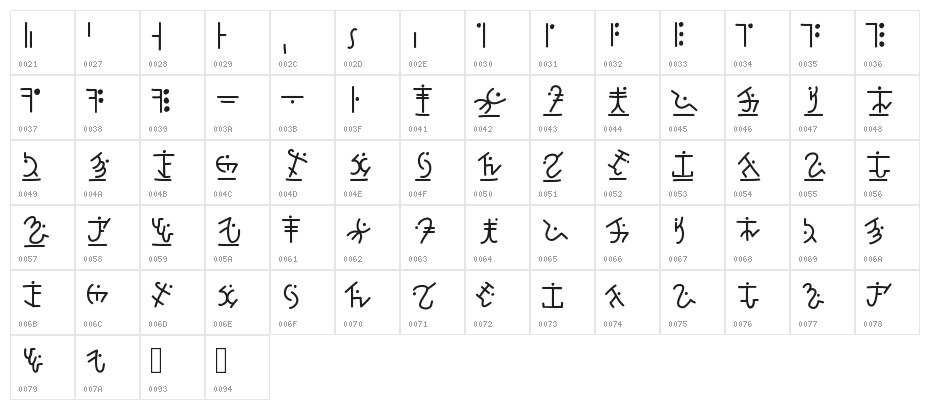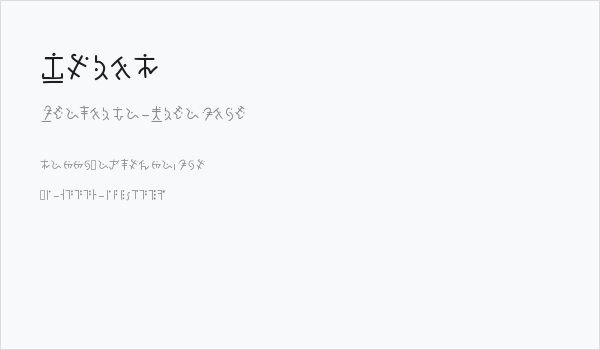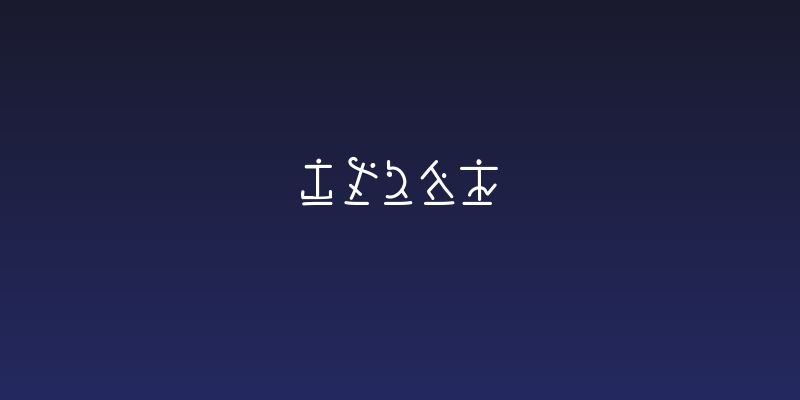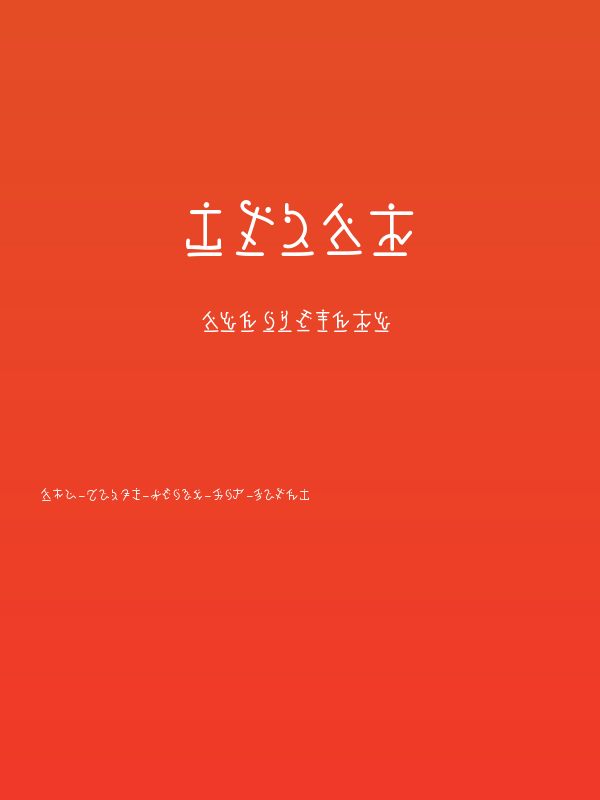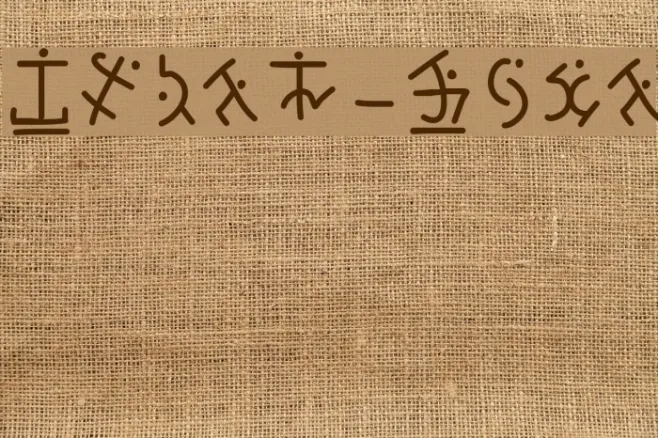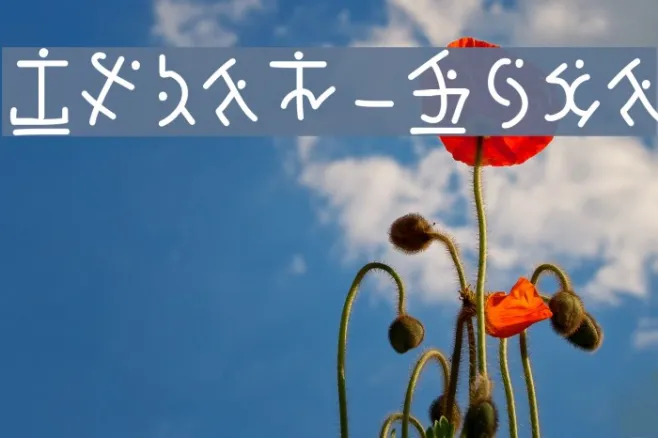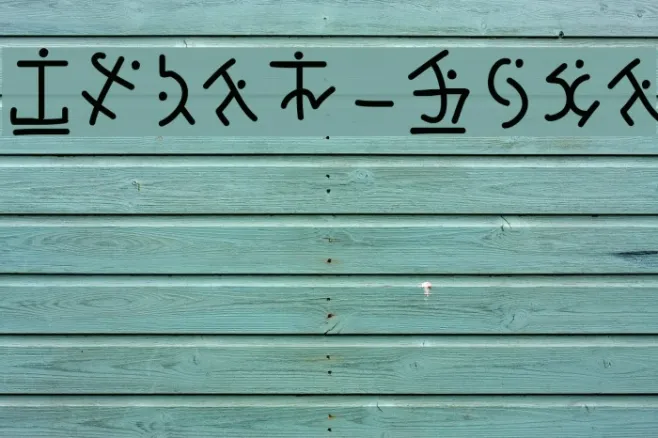
Smith Font
Smith Description
This font features a unique and decorative style, characterized by its abstract and symbolic glyphs. Each character is composed of a combination of lines and dots, creating an artistic and mysterious appearance. The design is consistent across both uppercase and lowercase letters, as well as numbers and special characters, maintaining a cohesive visual theme. The font's intricate details and unconventional shapes make it stand out, offering a distinct look that is both modern and artistic.
| Use Case | Logos, Posters, Artistic projects |
| Proposed Projects | Ideal for creative projects such as posters, album covers, or branding that seeks a unique and artistic flair. |